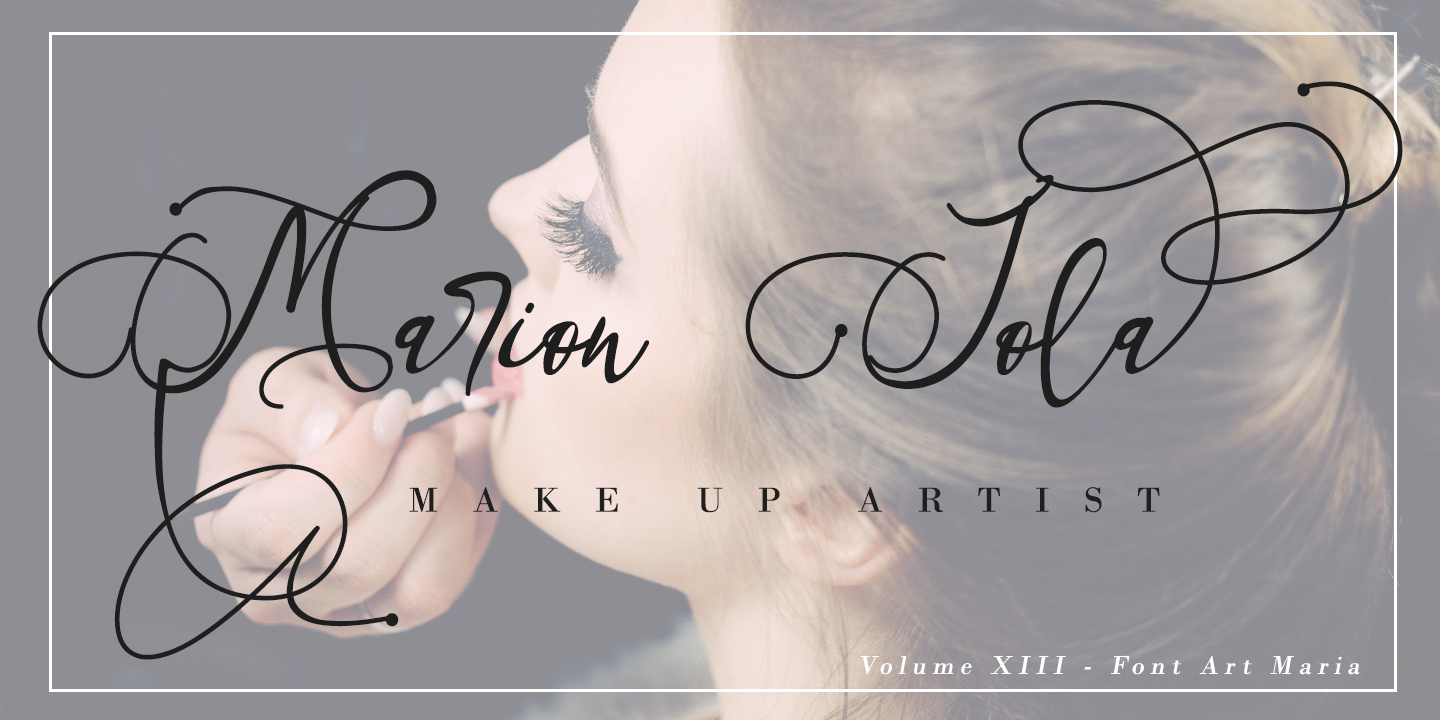
Art Maria Font is perfect for art gallery branding, creative studio identities, artistic portfolio designs, contemporary museum exhibits, painter workshop signage, fine arts education materials, creative agency logos, and expressive artistic projects.
Art Maria Font is exciting because it captures the passionate creativity and artistic soul of fine arts through its expressive character design that embodies the flowing brushstrokes of masterful painting and the intimate beauty of personal artistic expression. Its artistic styling and creative appeal make it the perfect choice for brands that want to communicate artistry, passion, and the transformative power of creative expression.
Art Maria Font family includes multiple artistic variations: Art Maria Light, Art Maria Regular, Art Maria Bold, Art Maria Brush, Art Maria Paint, and Art Maria Canvas, along with artistic decorative elements and creative symbols, providing designers with comprehensive tools for creating authentic fine arts and creative-themed brand experiences.
When exploring artistic typography solutions, Art Maria Font Free Download stands out as the ultimate choice for designers working on fine arts and creative projects that require genuine artistic sophistication and expressive appeal. This inspiring typeface embodies the essence of artistic passion while offering the versatility needed for modern art marketing and creative brand communications. The font's expressive character and artistic resonance create immediate connections with audiences who appreciate fine arts and creative expression.
Art professionals consistently turn to Art Maria Font for projects requiring authentic artistic sophistication and powerful creative appeal. Its carefully crafted letterforms feature painterly influences that work exceptionally well in both large-scale gallery exhibition displays and intimate artist studio materials. The font's ability to convey creativity and artistic authenticity while maintaining strong brand recognition makes it invaluable for comprehensive identity systems in the fine arts, creative education, and artistic expression sectors.
Whether you're developing art gallery identities, creating fine arts marketing materials, or designing creative workshop promotions, Art Maria Font delivers the authentic artistic character and expressive appeal that resonates with audiences who celebrate fine arts and creative passion. Its artistic significance and painterly design ensure your projects capture the soulful beauty of artistic expression while maintaining contemporary professional standards that attract modern art enthusiasts and creative expression advocates.